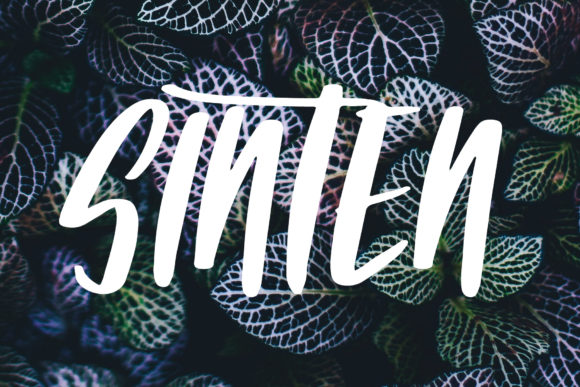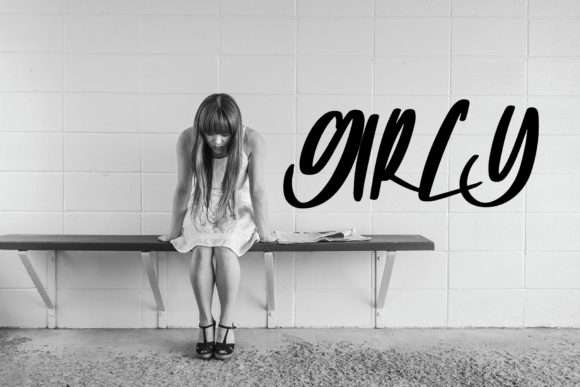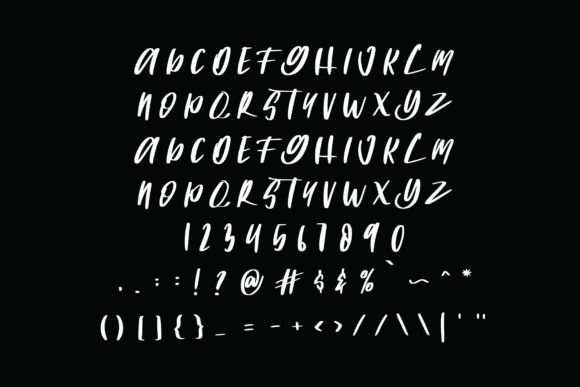
Sinten Font
About Sinten Font
Sinten is a bold and heavy script that delivers a unique font experience. Use it to take any design idea to the next level.